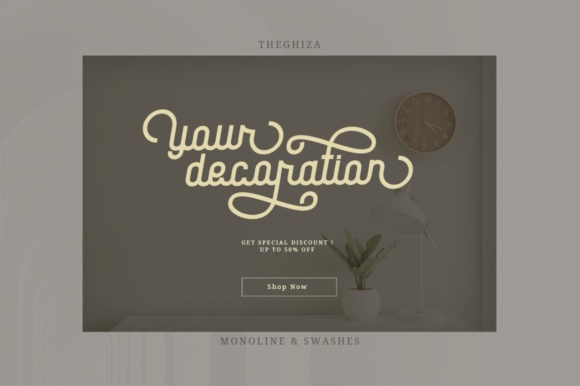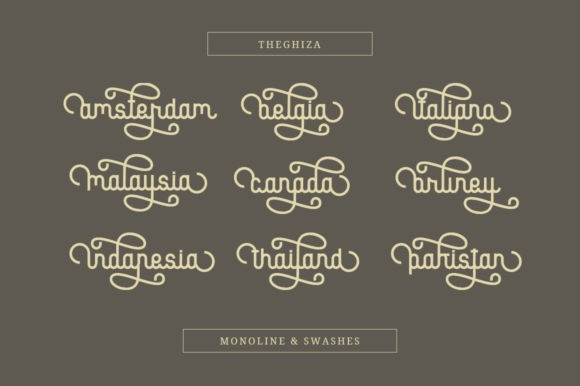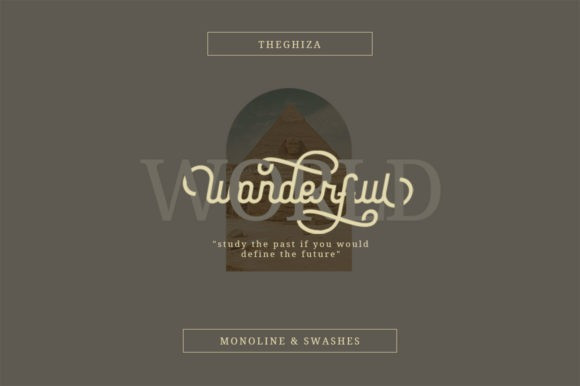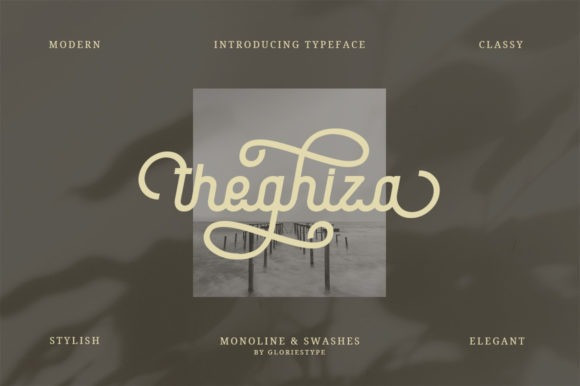
Theghiza Script Font is a quality vintage typeface its looks classic and with monoline style. with all capital style and many glyphs. It is defined by smooth curves and is perfect for fashion branding or editorial designs. Theghiza is PUA encoded which means you can access all glyphs and swashes with ease!
Theghiza